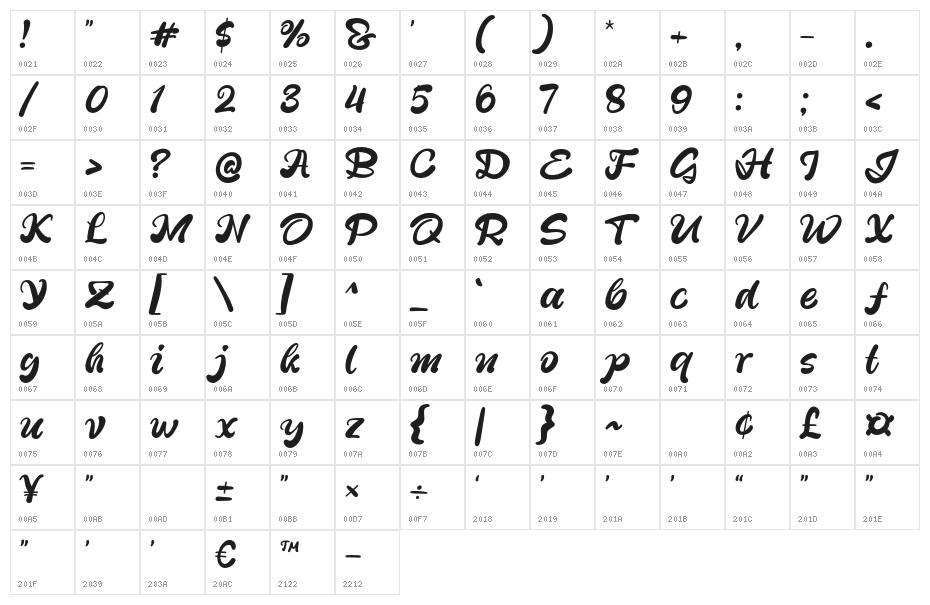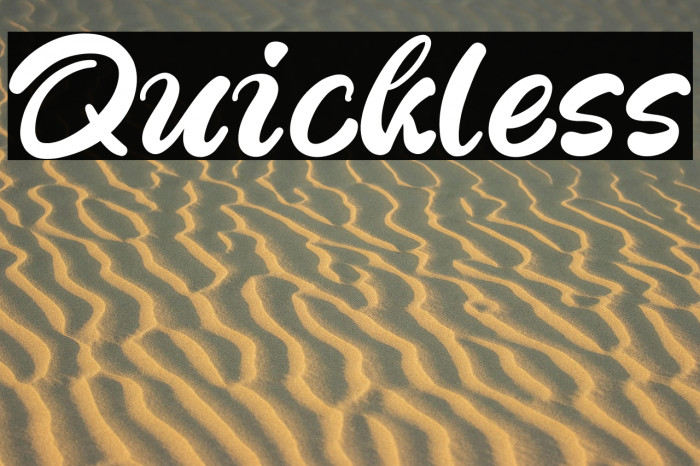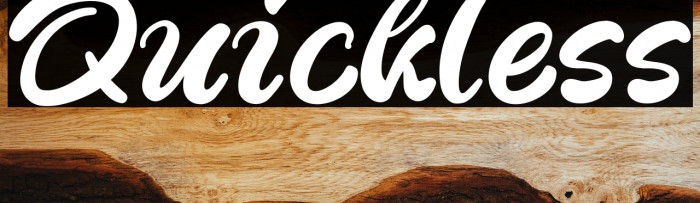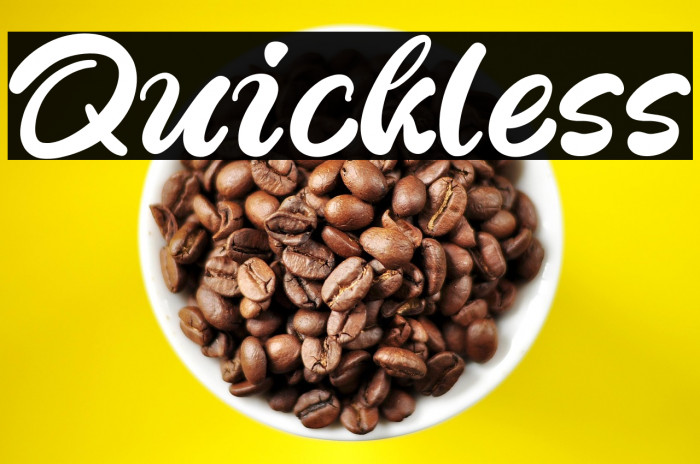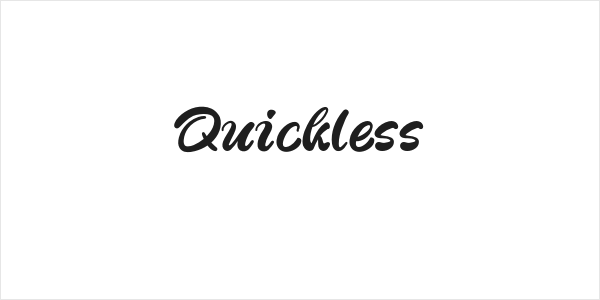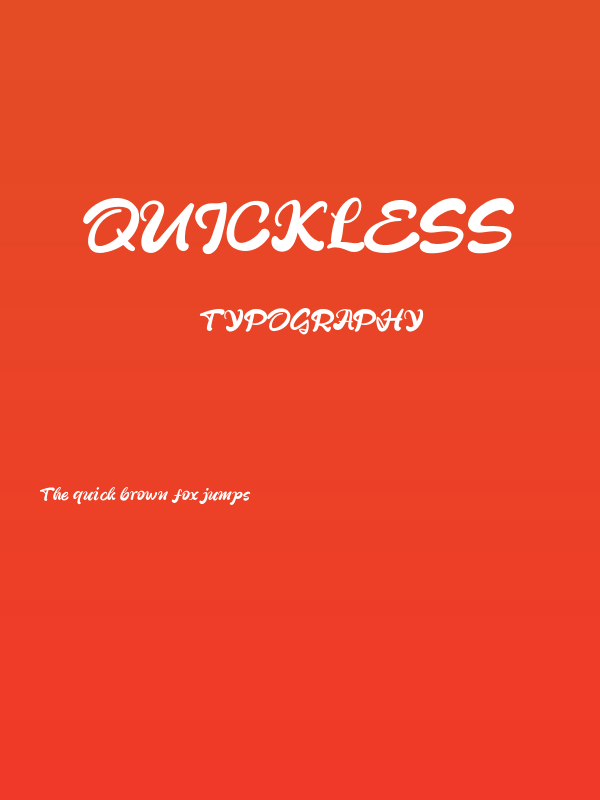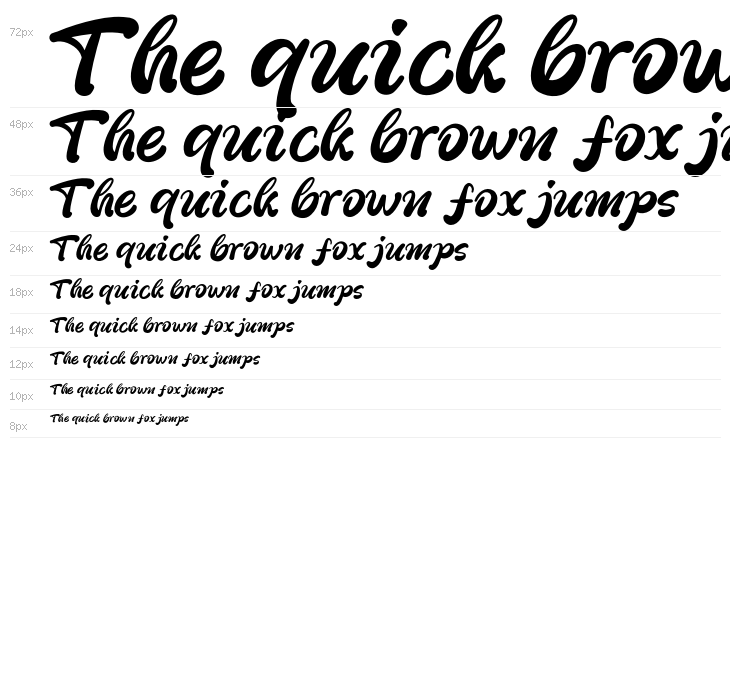
Quickless Font
Quickless Description
This font features a bold and flowing script style, characterized by its smooth, cursive strokes and elegant curves. Each letter seamlessly connects to the next, creating a harmonious and fluid appearance. The uppercase letters exhibit a sense of grandeur with their sweeping lines, while the lowercase letters maintain a consistent rhythm and balance. The numerals and special characters are designed to complement the overall aesthetic, ensuring a cohesive look across all elements. This font exudes a sense of sophistication and creativity, making it ideal for projects that require a touch of elegance and flair.
| Overall Style | Elegant |
| Use Case | Logos, Invitations, Branding |
| Proposed Projects | Ideal for wedding invitations, branding, greeting cards, and elegant logo designs. |